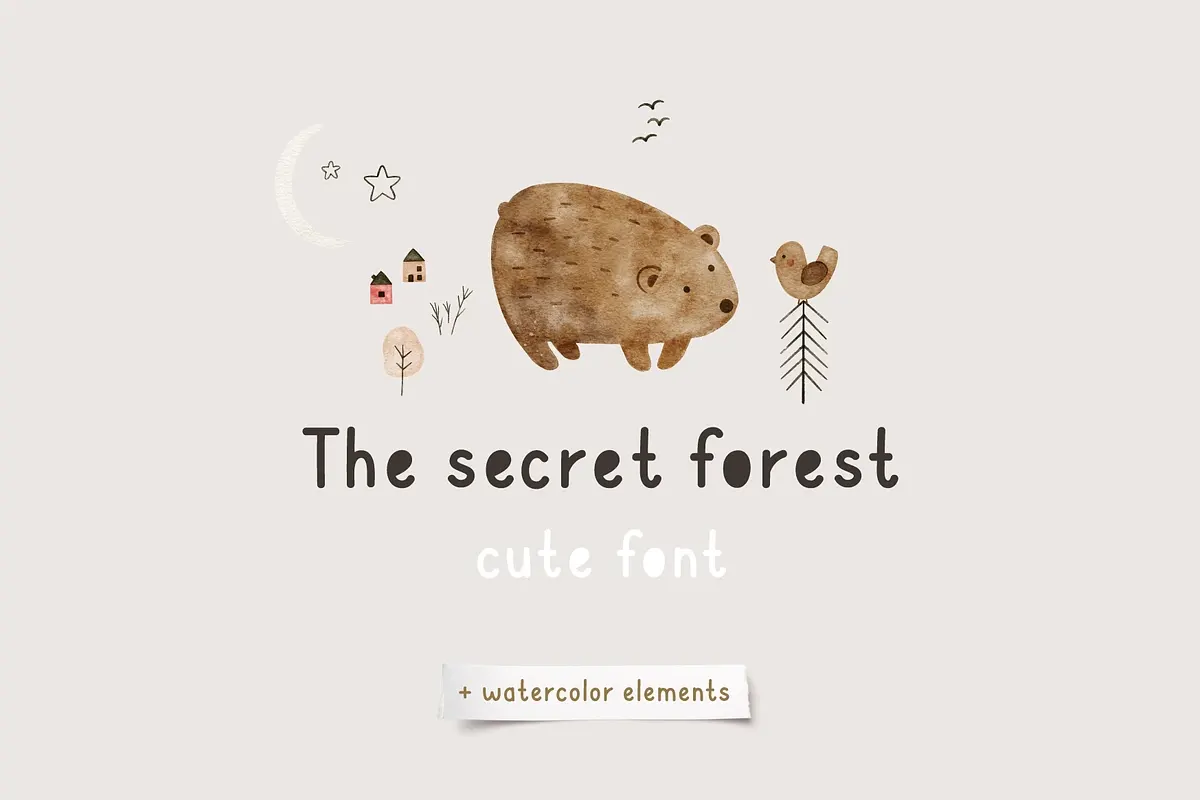
Secret Forest Cute Font Free Download is a whimsical and heartwarming typeface that brings fairytale vibes to your creative projects. With its rounded shapes, playful charm, and storybook style, this font is perfect for children's books, branding, greeting cards, product packaging, and magical-themed designs.
Download Secret Forest Cute Font Free Download today to explore its enchanting look in personal projects before obtaining a commercial license. The font features uppercase and lowercase letters, punctuation, numerals, and multilingual support—making it both adorable and practical.
Whether you're designing for a toy brand, fairy tale project, or dreamy social media content, Secret Forest adds a gentle, imaginative touch that feels straight out of a fantasy world. Let your creativity wander with this charming font that sparks joy and wonder.